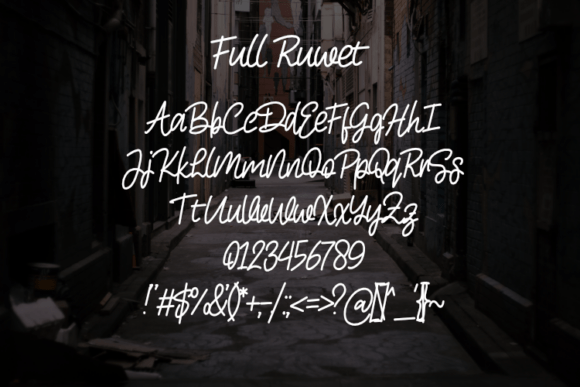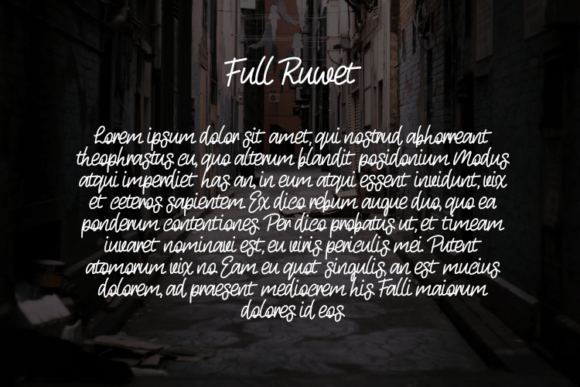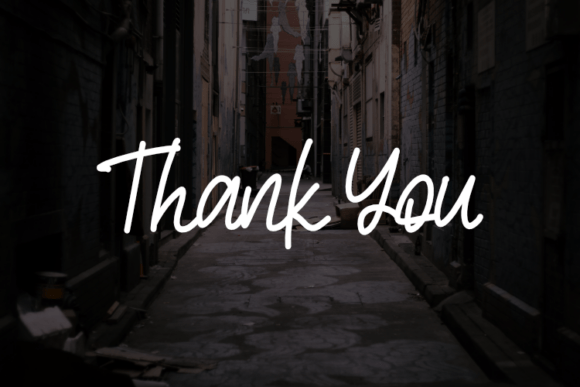
Introducing Full Ruwet Font: Elevate Your Designs with a Unique Edge
In the world of design, fonts play a crucial role in conveying the message and aesthetic of a brand or product. For designers and crafters looking to add a touch of distinct panache to their creations, the Full Ruwet font is an exceptional choice. This adaptable and versatile font is perfect for infusing clothing and product designs with a unique edge, making it an ideal addition to your typography collection.
Unleash Your Creativity with Full Ruwet
Full Ruwet is more than just a font – it’s a design statement. Its unique style and character can instantly elevate your designs, whether you’re working on t-shirts, merchandise, or any other project that requires a distinctive touch. The font’s adaptability ensures that it can be used across various design platforms, making it a convenient choice for designers who work with different software.
The Perfect Blend of Artistry and Functionality
Full Ruwet strikes the perfect balance between artistry and functionality. The font’s design is not only visually appealing but also highly legible, making it suitable for a wide range of applications. Whether you’re creating bold statements or subtle design elements, Full Ruwet provides the perfect blend of style and readability. This harmony of artistry and functionality makes it an excellent choice for designers who want to create stunning designs that also communicate effectively.
Why Choose Full Ruwet for Your Designs?
- Unique Style: Full Ruwet offers a distinctive style that can set your designs apart from the rest.
- Versatility: The font’s adaptability makes it suitable for various design projects, from clothing to product designs.
- Legibility: Highly legible, ensuring that your message is communicated clearly.
- Experiment with Sizes: Play around with different font sizes to see how Full Ruwet looks in various contexts.
- Pair with Other Fonts: Try pairing Full Ruwet with complementary fonts to create visual interest.
- Adjust Line Spacing: Adjust the line spacing to ensure that your text is easy to read.
- Color Choices: Experiment with different colors to see how they impact the overall look of your design.
Full Ruwet is a game-changer for designers and crafters looking to add a unique edge to their creations. Its adaptability, versatility, and exceptional compatibility make it an invaluable addition to any design toolkit. By choosing Full Ruwet, you’re not just selecting a font – you’re embracing a design philosophy that balances artistry with functionality. Whether you’re working on clothing designs, product labels, or any other project, Full Ruwet provides the perfect blend of style, convenience, and legibility. Elevate your designs with the charm and character of Full Ruwet, where artistry meets functionality in perfect harmony.